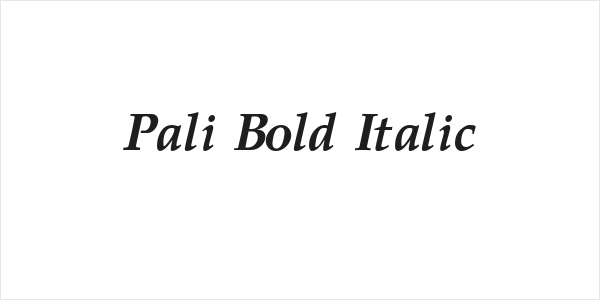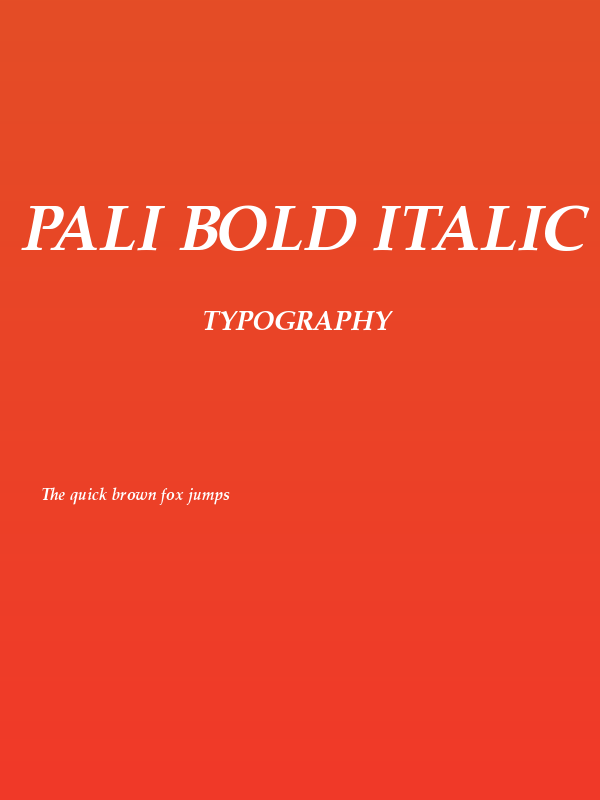
Pali Bold Italic Font
Pali Bold Italic Description
This font features a classic serif style with a bold and italicized appearance, giving it a strong yet elegant look. The characters are well-defined with a slight slant, adding a dynamic and sophisticated touch. The serifs are pronounced, enhancing the traditional feel while maintaining readability. The numbers and special characters are consistent with the overall design, ensuring uniformity across different uses. This font is suitable for projects that require a touch of formality and elegance.
| Use Case | Headlines, Logos, Editorial design |
| Proposed Projects | Ideal for formal invitations, book covers, branding materials, and editorial design. |